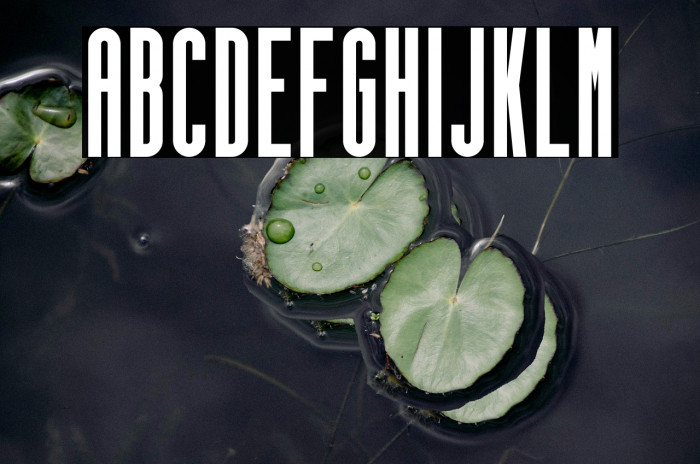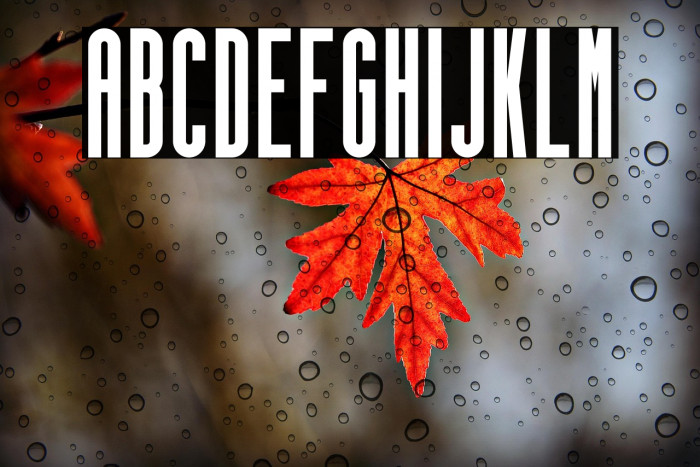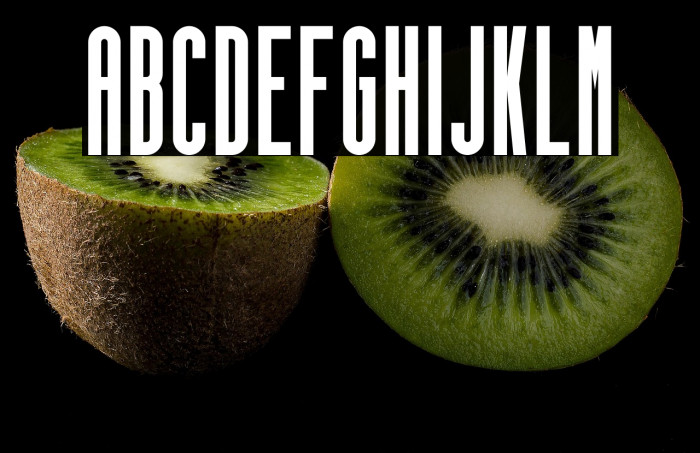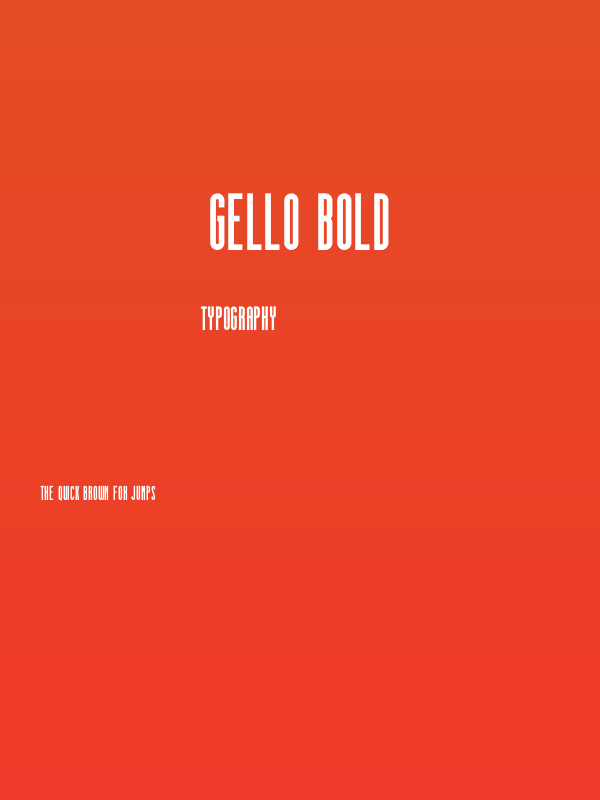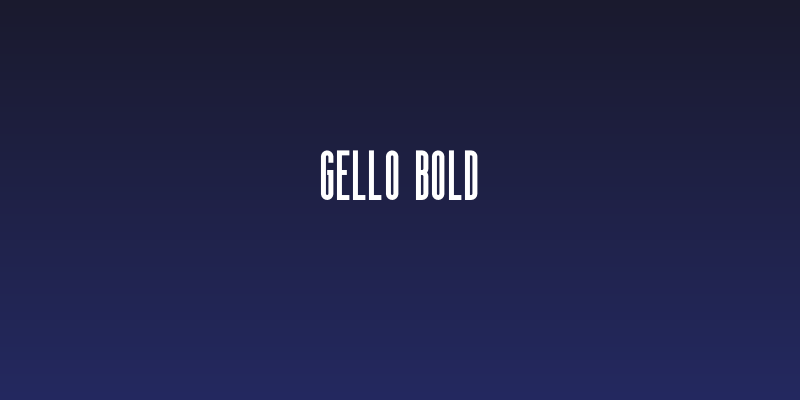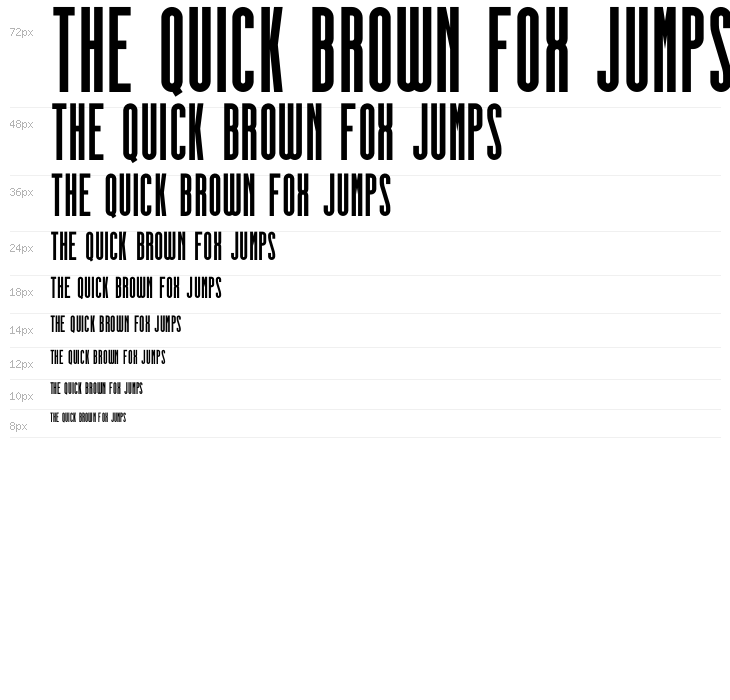
gello bold Font
gello bold Description
This font features a bold and impactful design with tall, narrow characters that create a strong visual presence. The uppercase letters are particularly elongated, giving the font a distinctive and modern look. The numbers and special characters maintain the same boldness and height, ensuring consistency across all elements. The font's vertical emphasis and condensed width make it ideal for creating attention-grabbing headlines and titles. Its clean lines and lack of serifs contribute to a contemporary and sleek appearance, suitable for various design projects that require a bold statement.
| Proposed Projects | Ideal for headlines, posters, branding, and any design requiring a strong visual impact. |